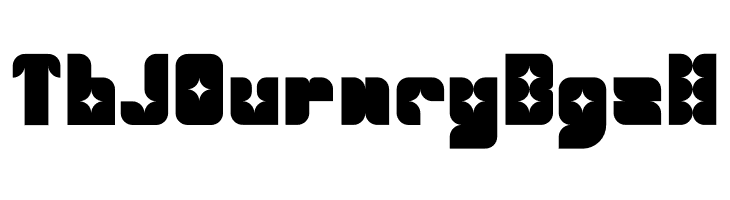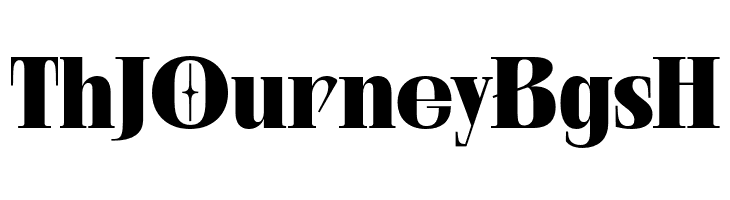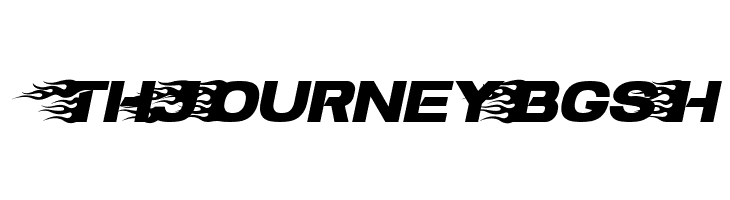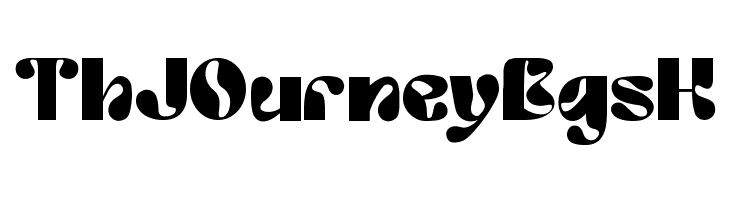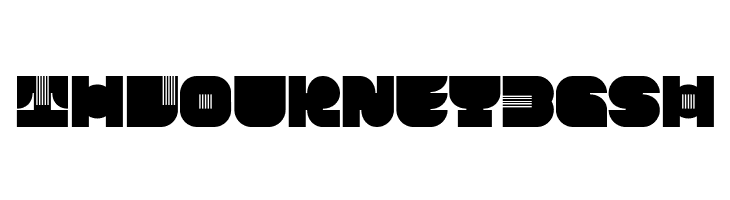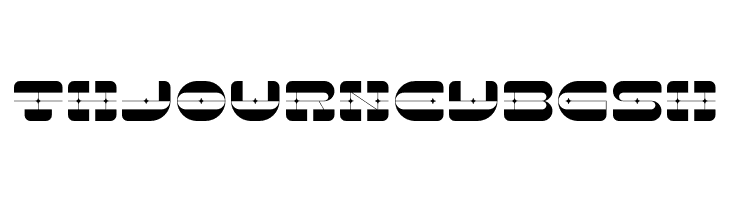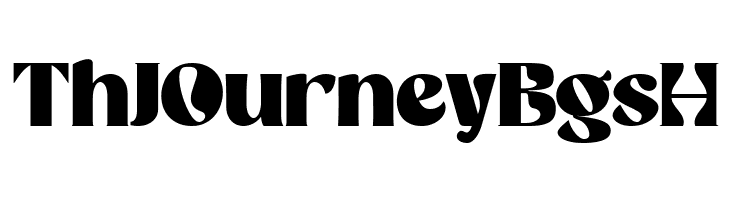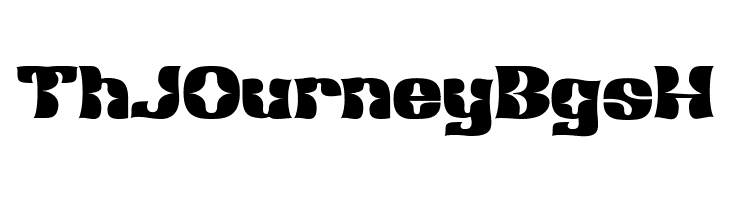
A bold, geometric font with star-shaped cutouts for a decorative touch.
A bold serif font with high contrast and unique cutouts, perfect for dramatic designs.
A bold, italicized typeface with a dynamic, racing-inspired design.
A bold, artistic font with high contrast and playful cutouts.
A bold, geometric font with artistic cutouts and a modern flair.
A bold, geometric font with playful cutout designs.
A bold, geometric font with circular cutouts and a playful yet structured design.
A futuristic, geometric font with bold, rounded shapes and unique cutouts.
A bold, geometric font with sharp angles and unique cutouts.
A bold, decorative font with intricate cutouts and a striking appearance.